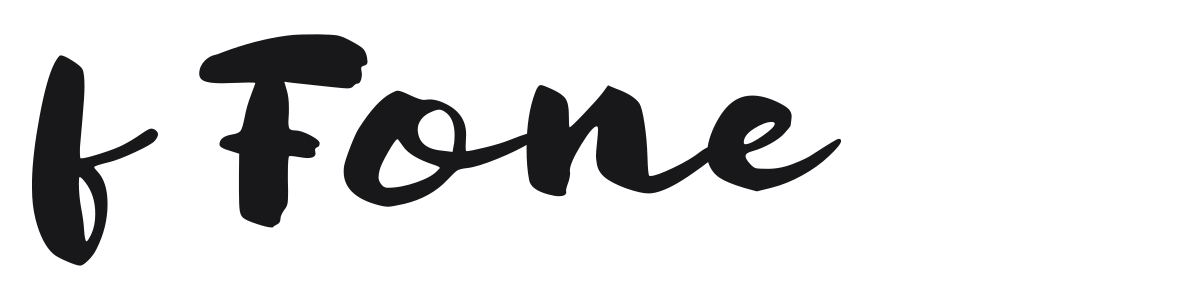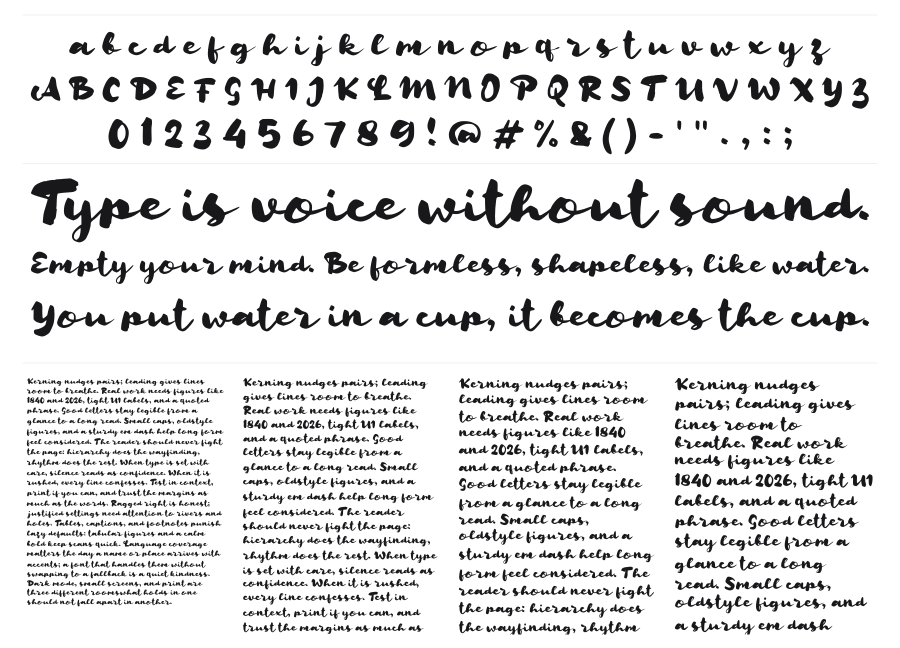
f Fone
f Fone is a bold brush script with a confident, hand-lettered feel and fluid connecting strokes. The strong contrast between thick downstrokes and wispy hairlines gives it the lively energy of a freshly inked signature. Works well for branding, packaging, and any headline that needs a casual, expressive touch.